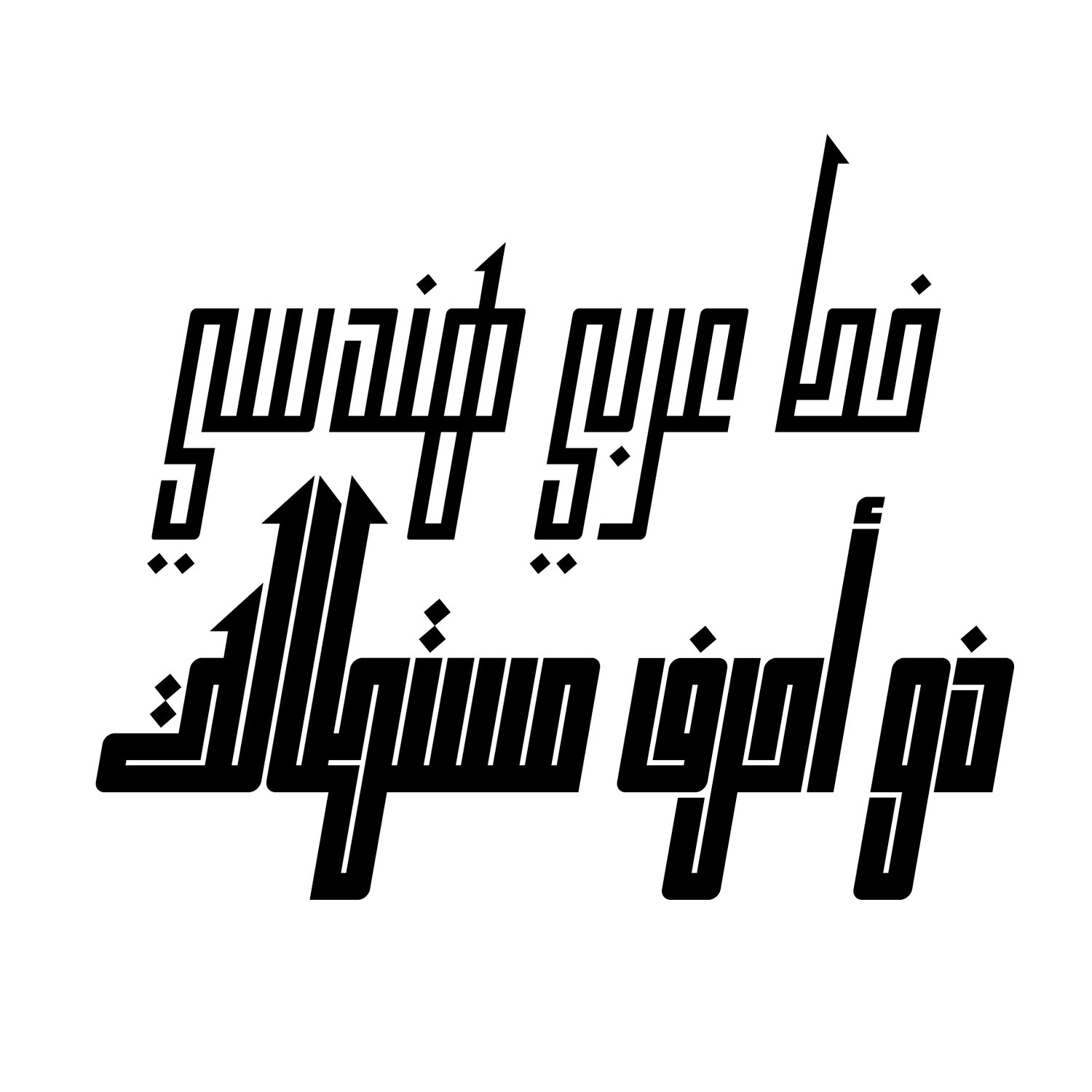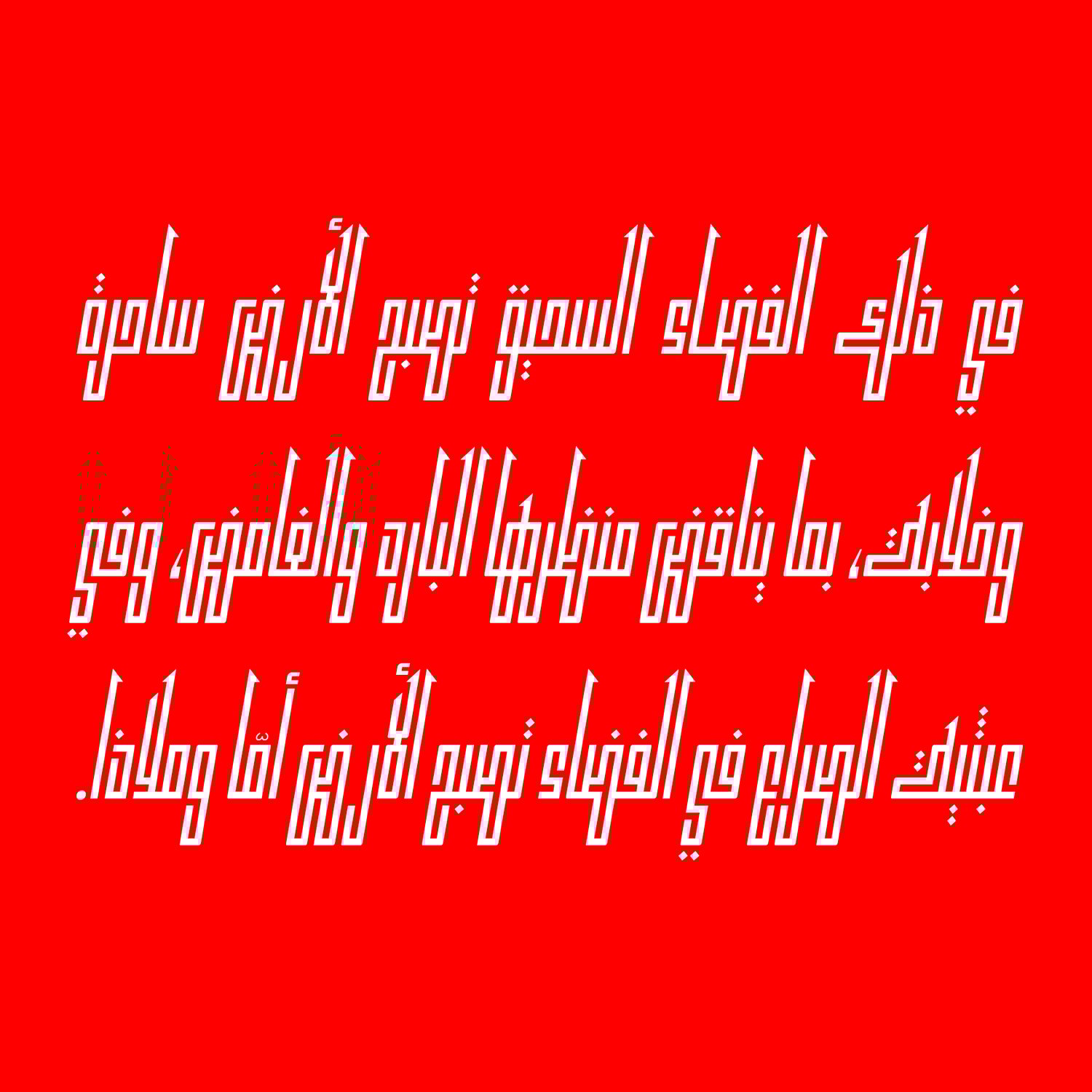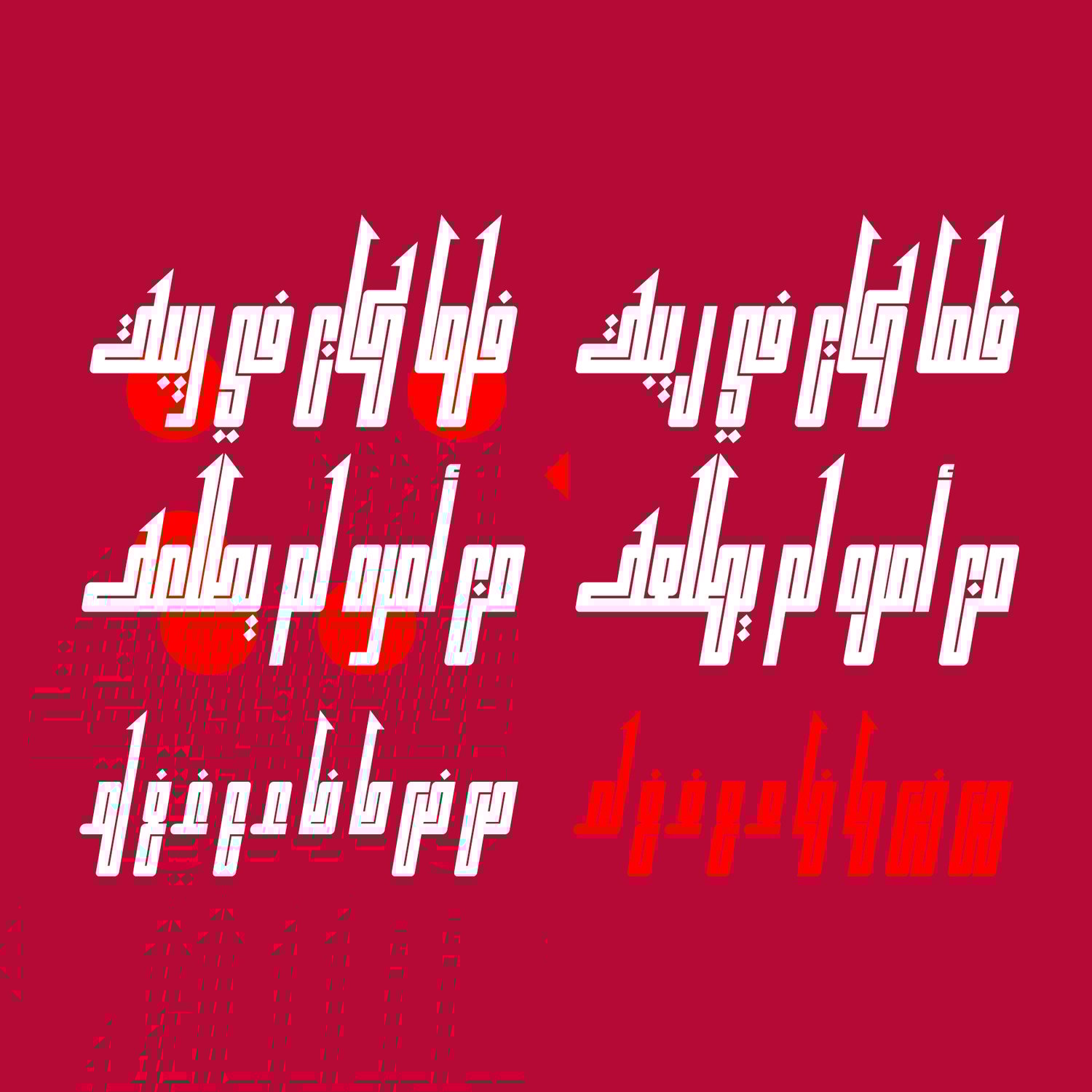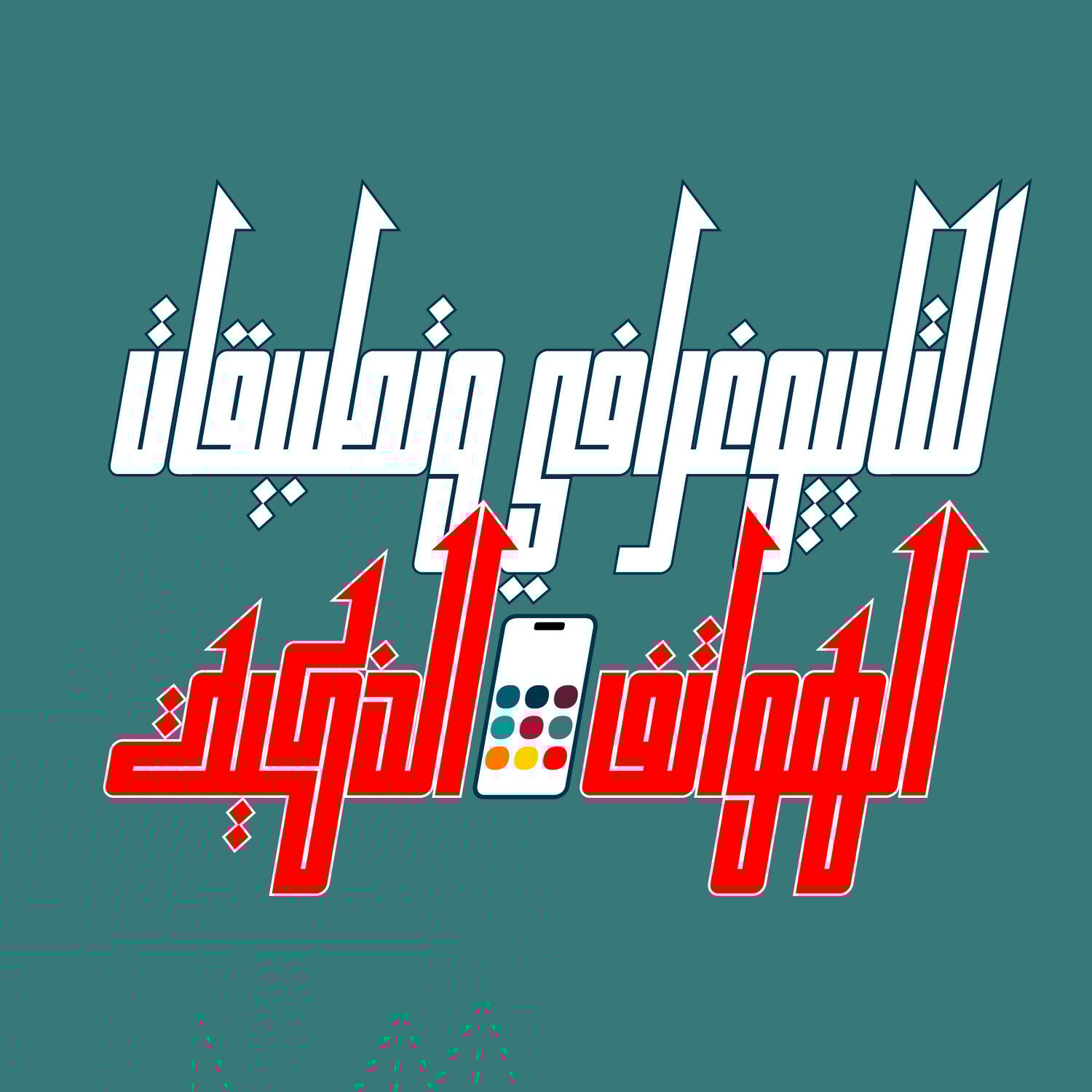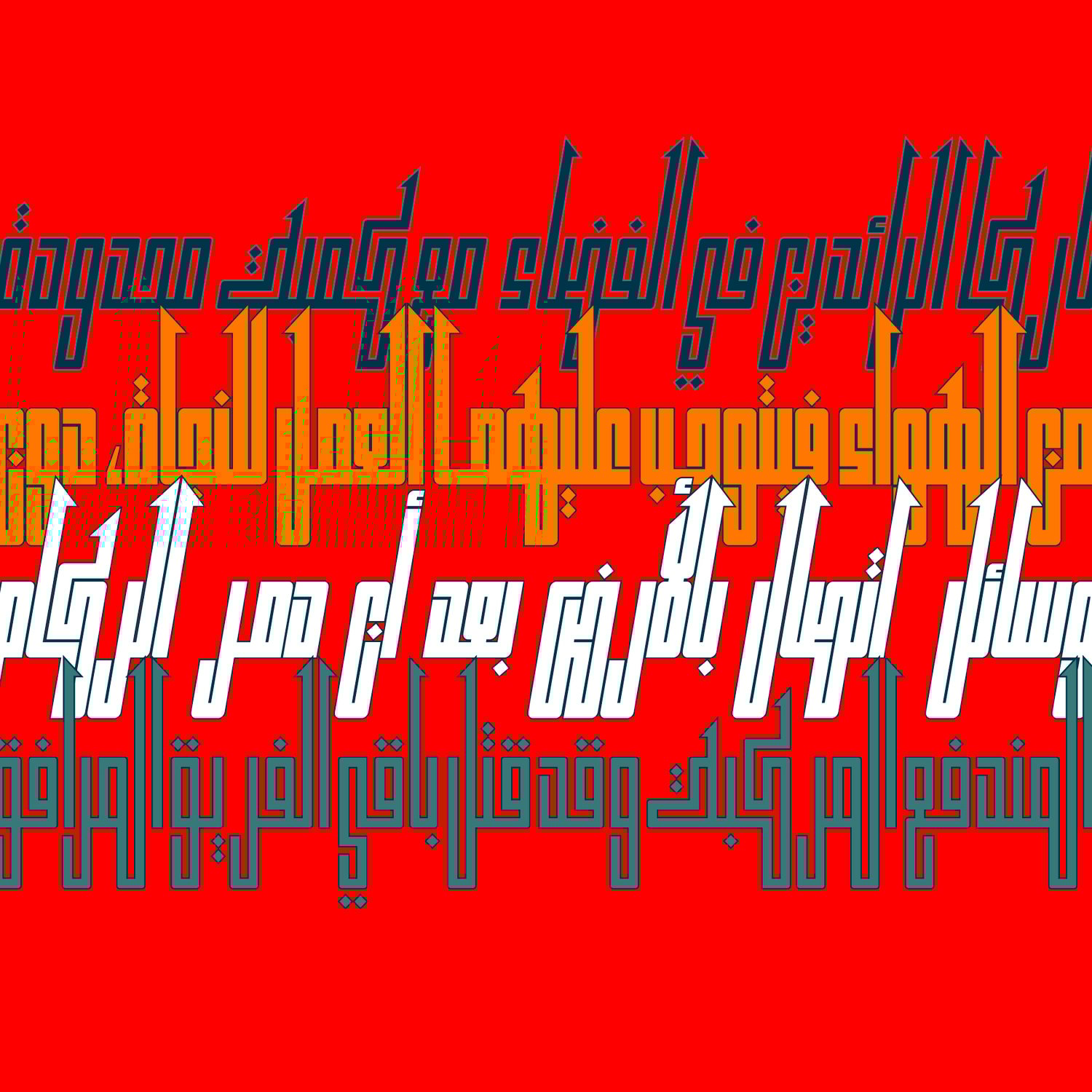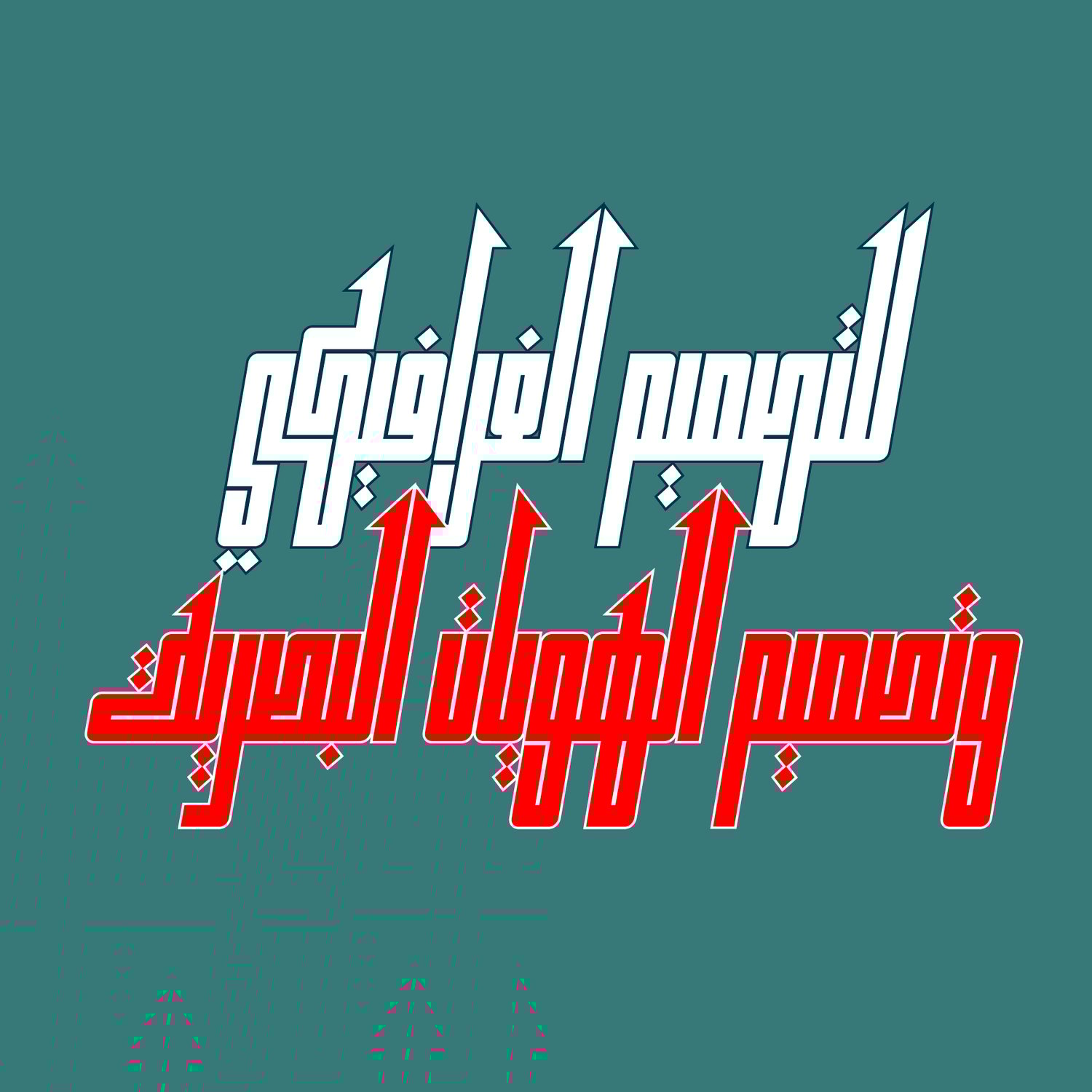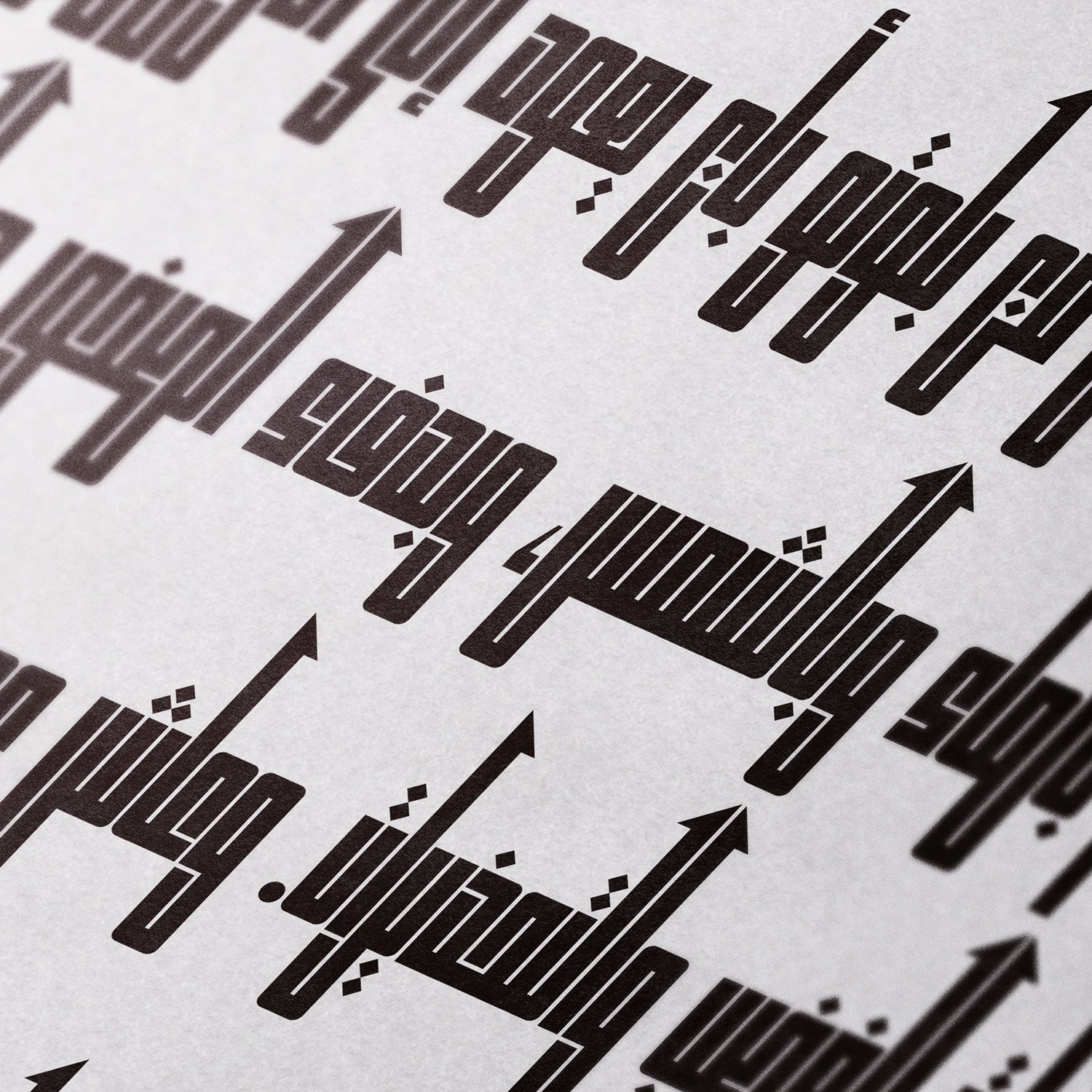
Kufikan - Arabic Typeface
Kufikan is an Arabic display typeface characterized by its elongated and ultra-narrow letterforms. It is ideal for a variety of creative projects, such as web design, branding, advertising, and publications. The Kufikan typeface includes four styles: Regular, Oblique, Bold, and Bold Oblique, and is compatible with Windows, macOS, and mobile applications.